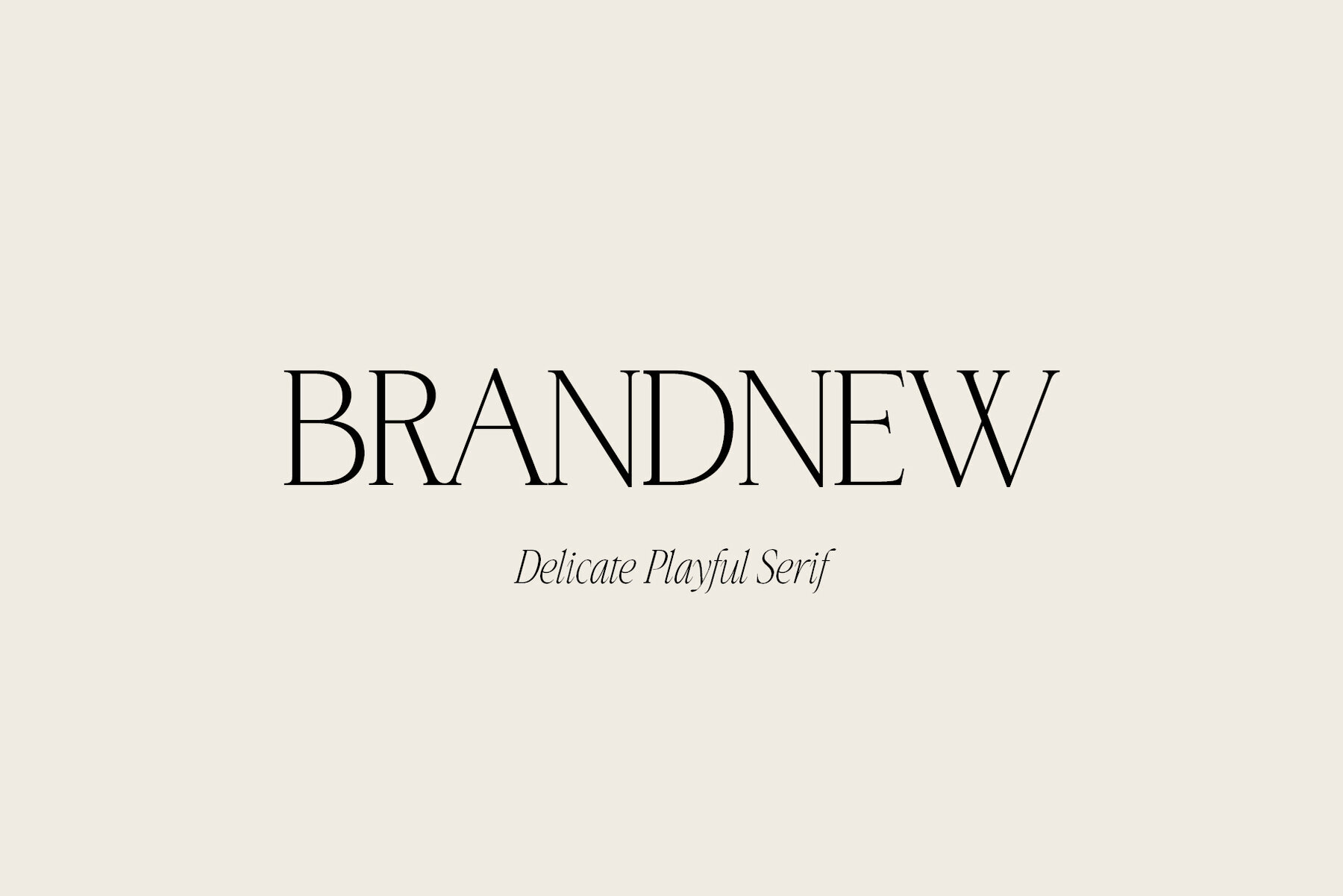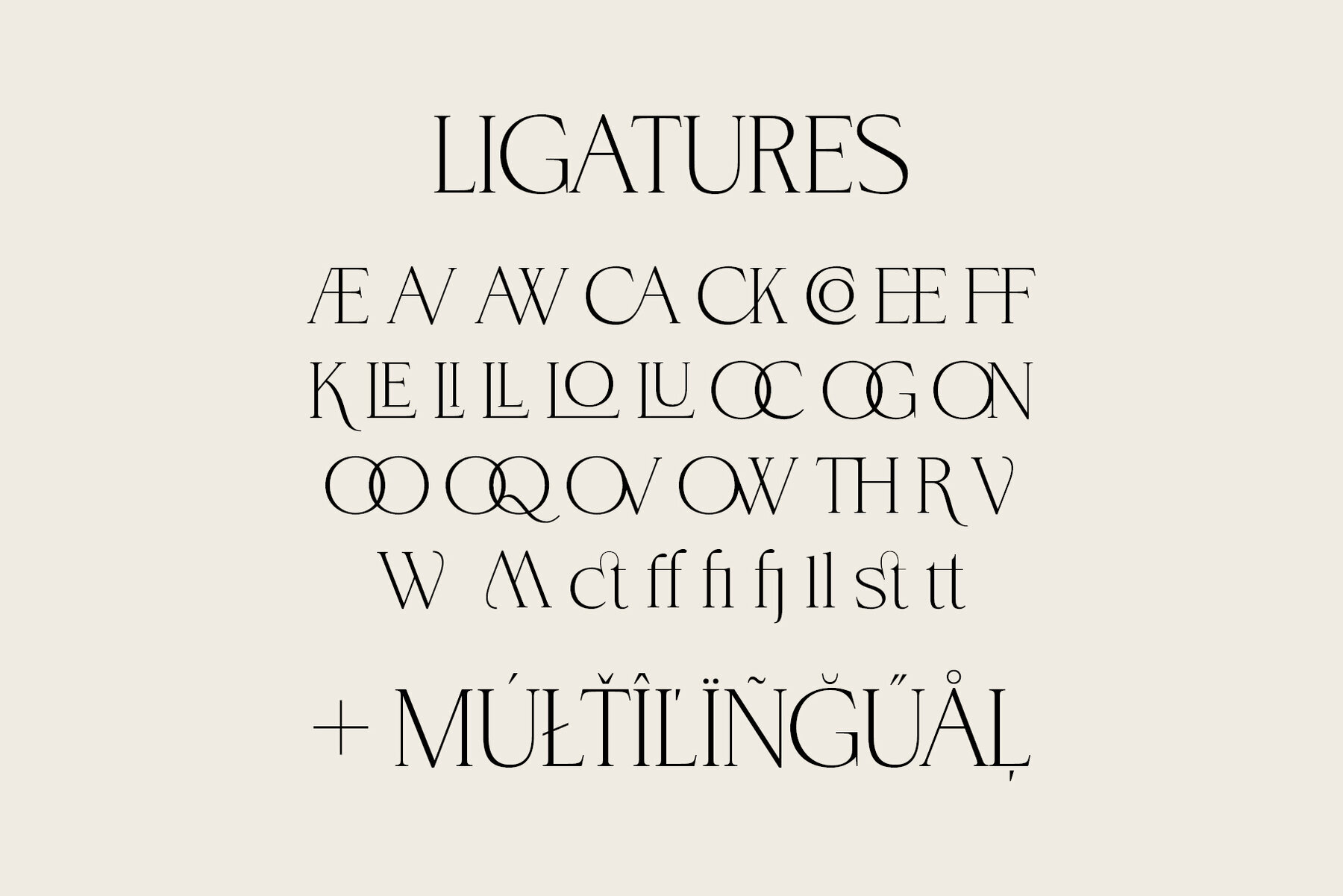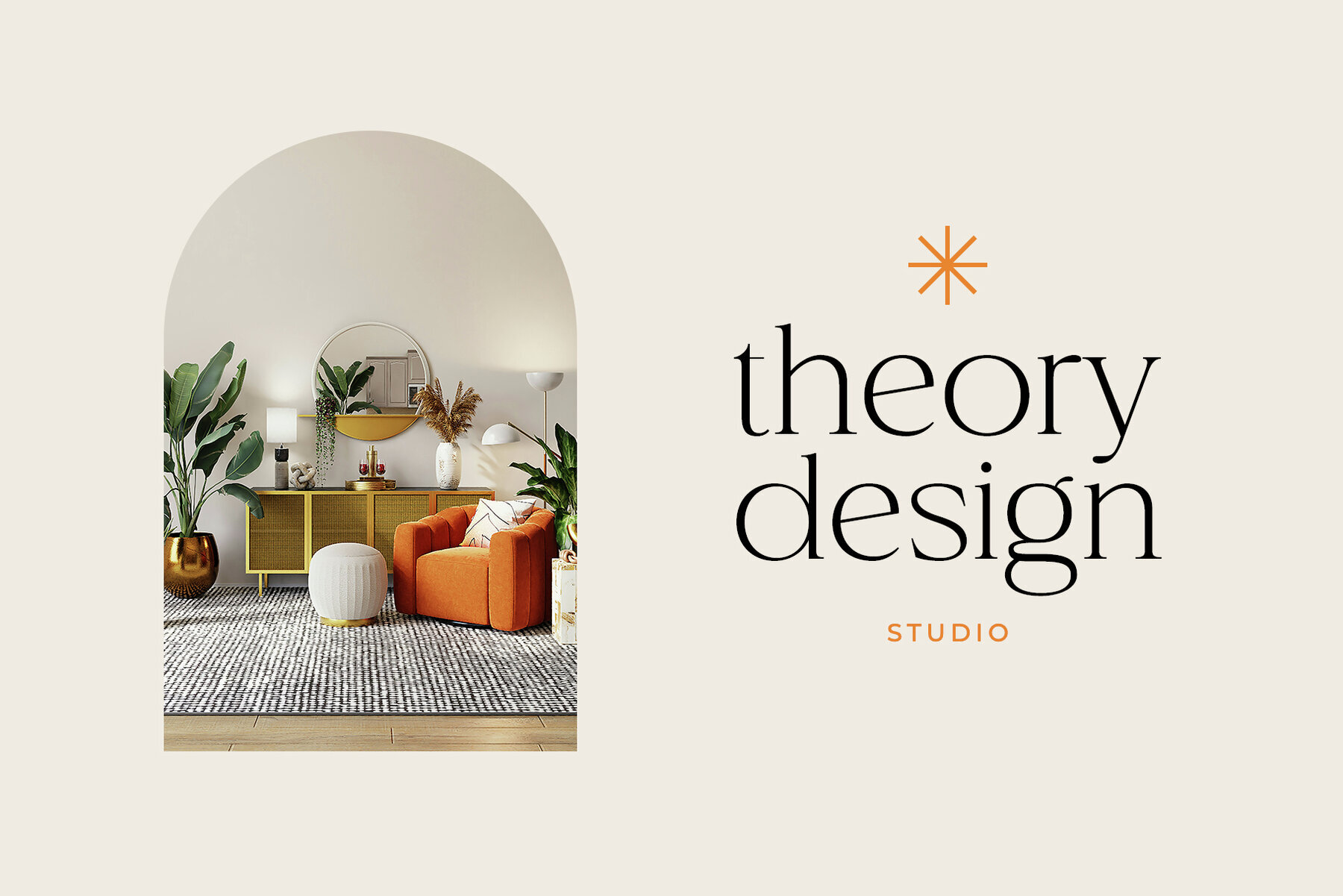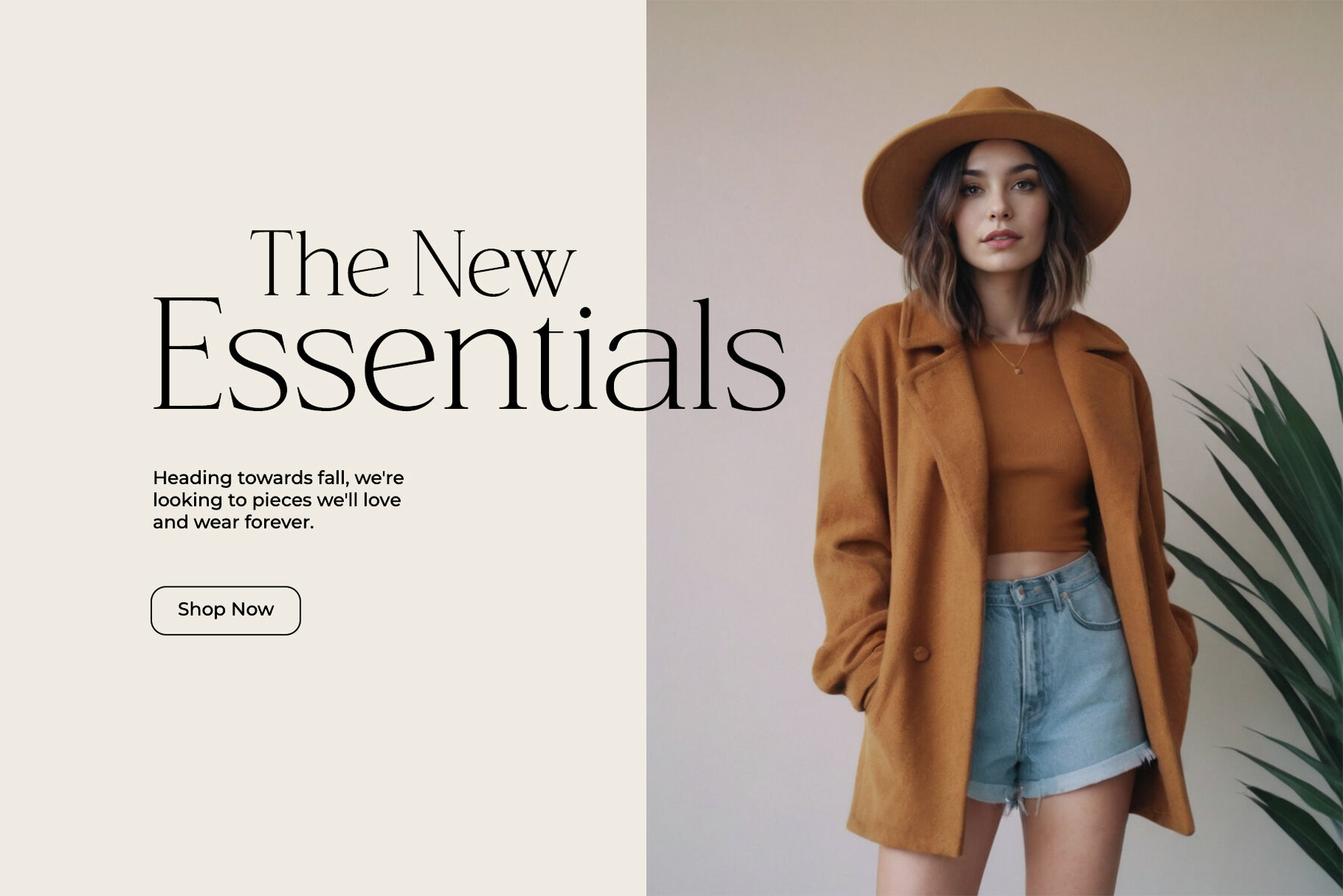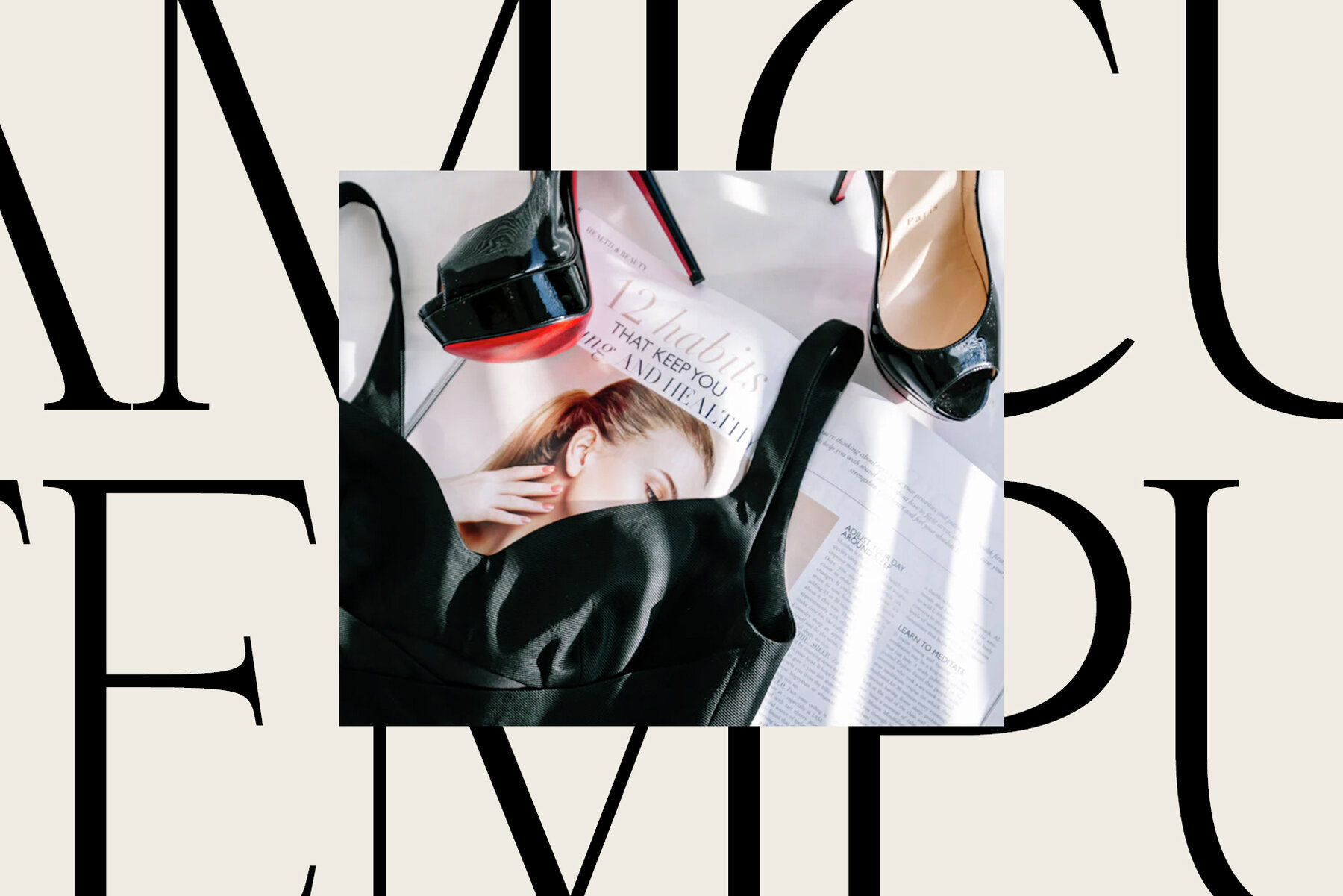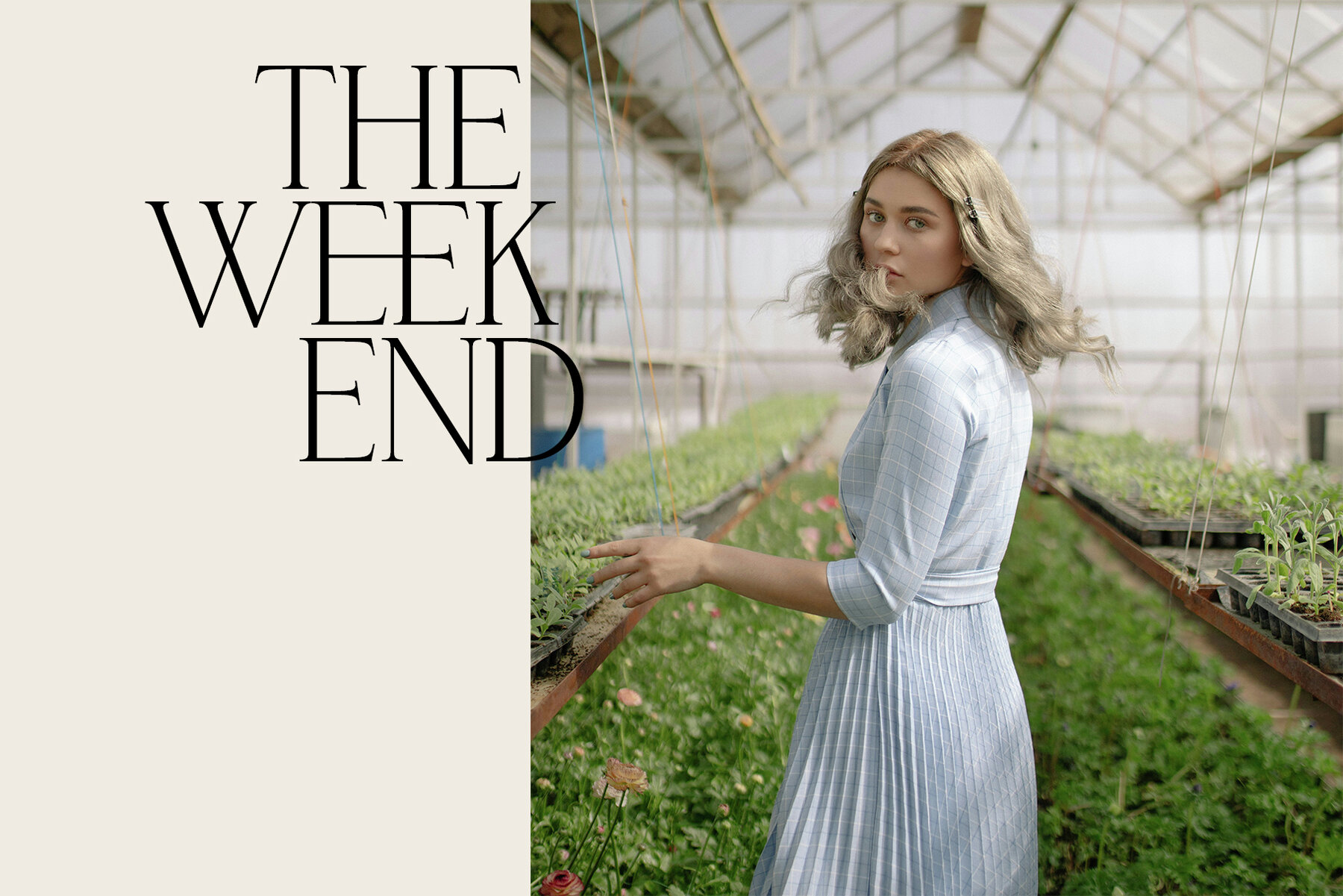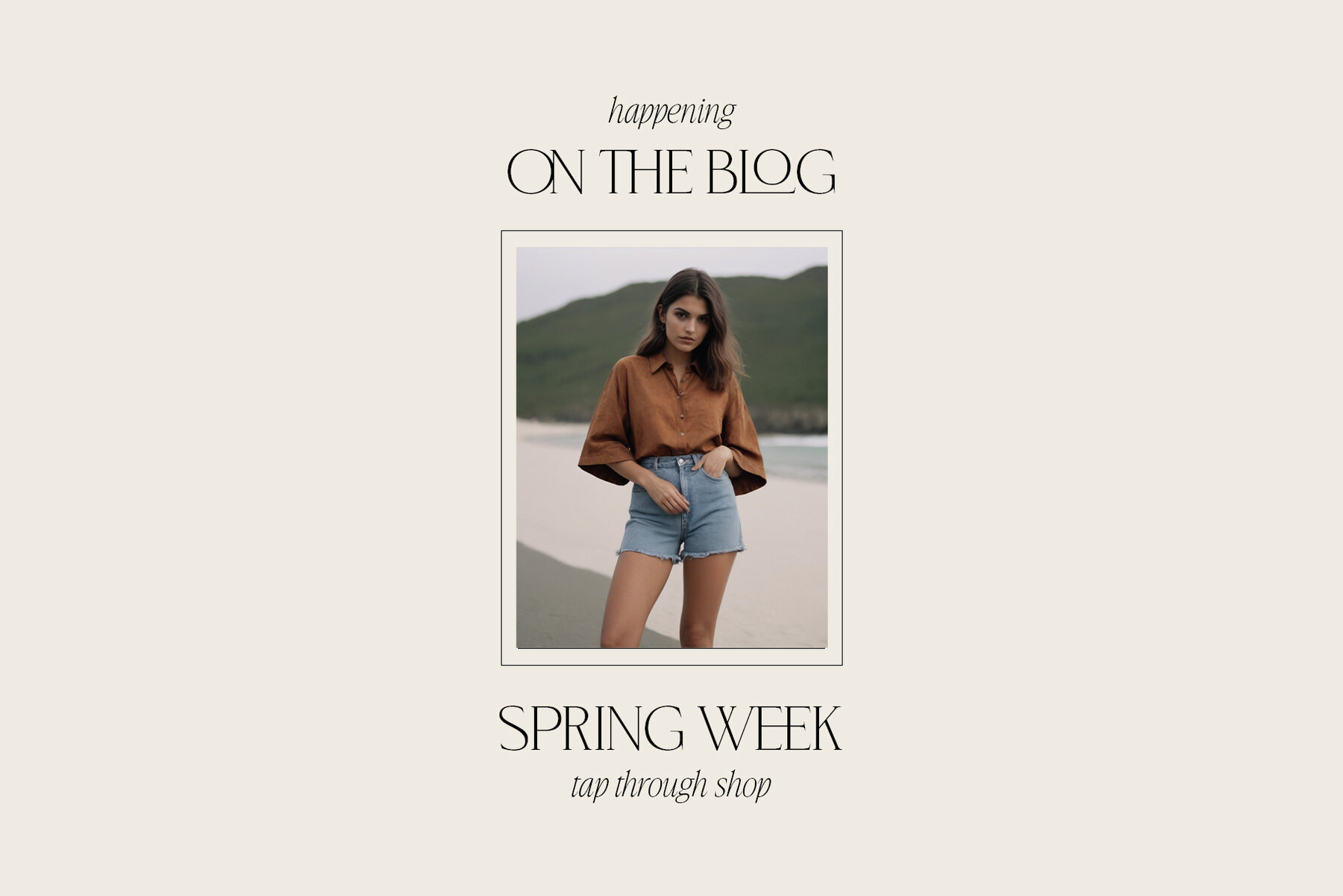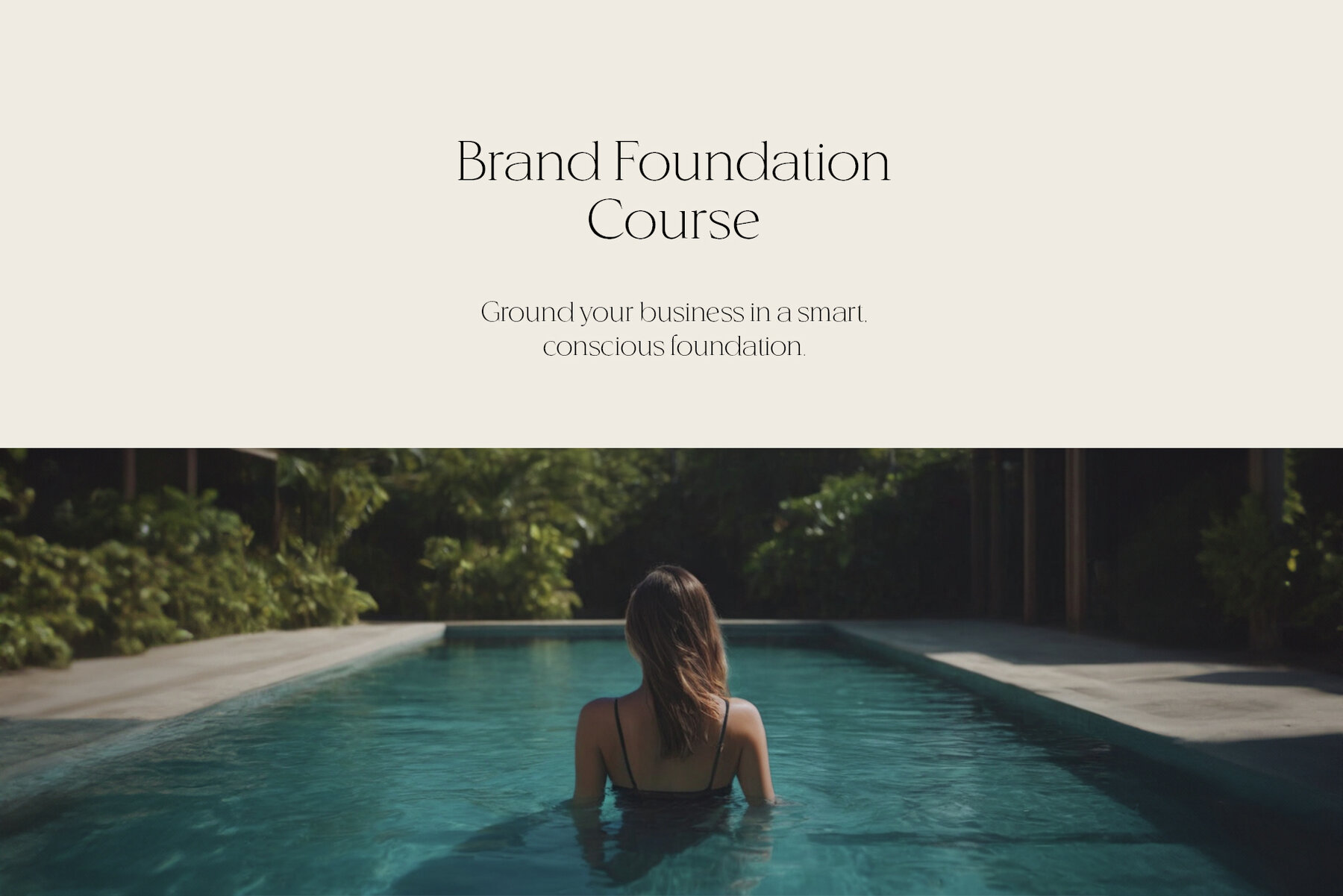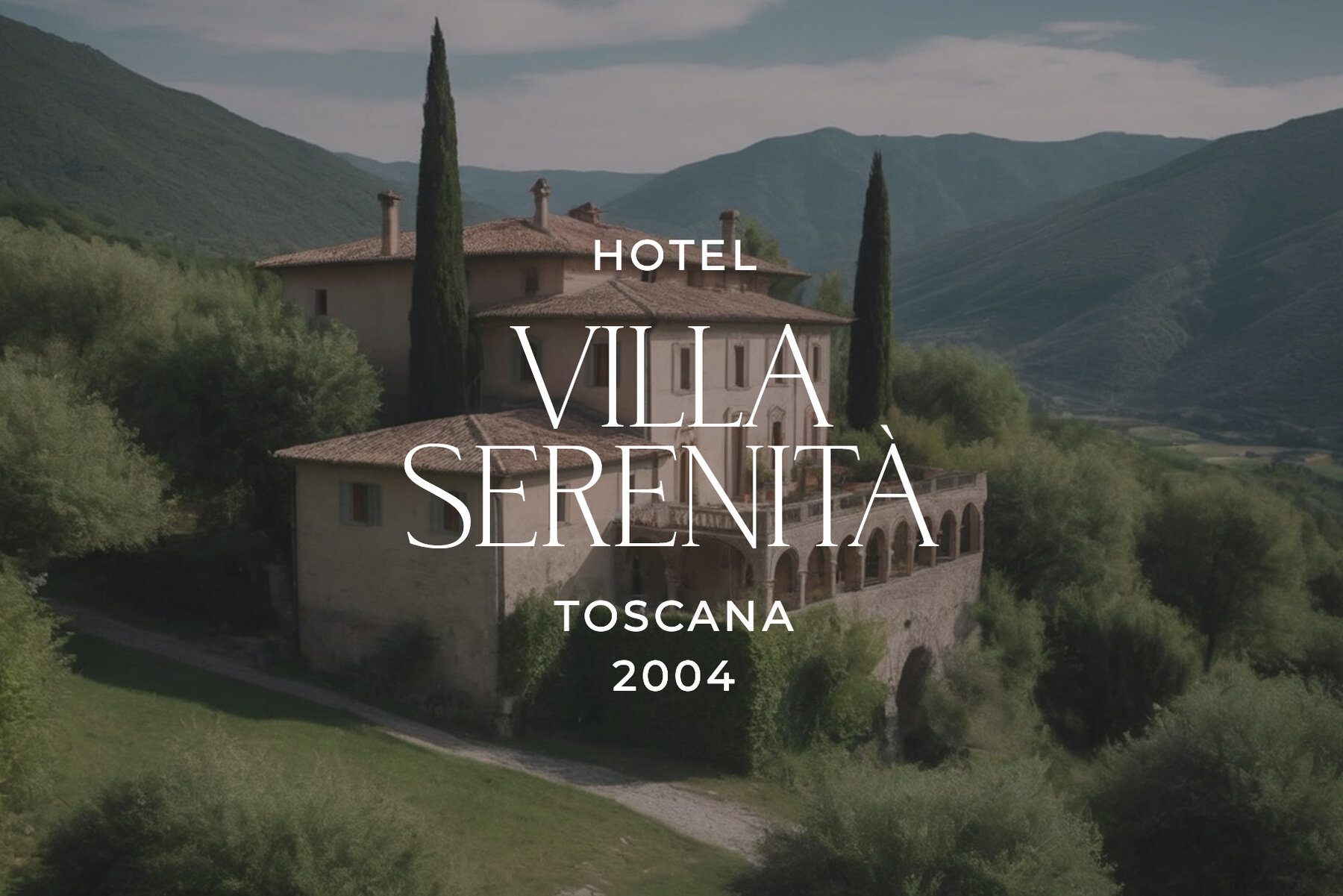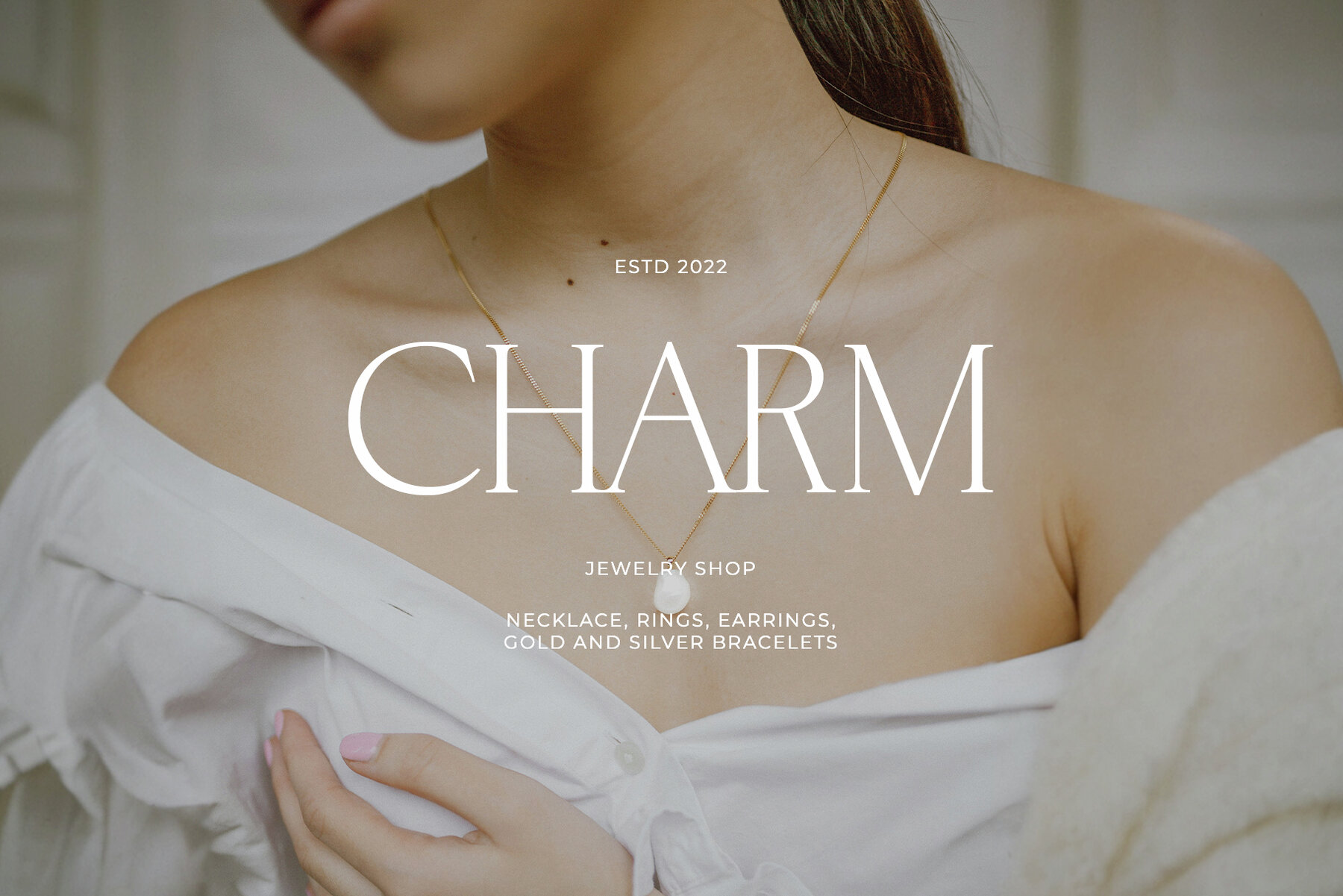
Brand New Font
Brand New Regular
Introducing BrandNew Delicate, a playful serif font designed to enhance the beauty and uniqueness of your digital images. Ideal for various projects including: Choose BrandNew Delicate for your creative needs and bring a touch of elegance and playfulness to your designs.